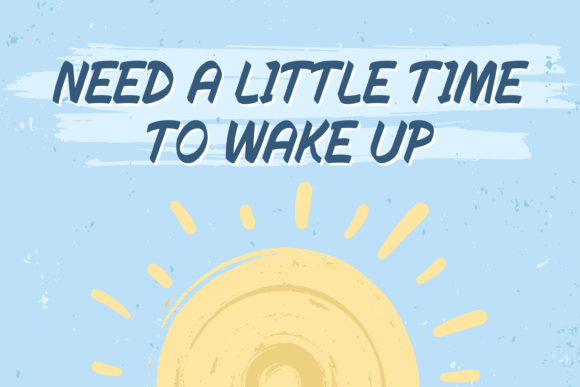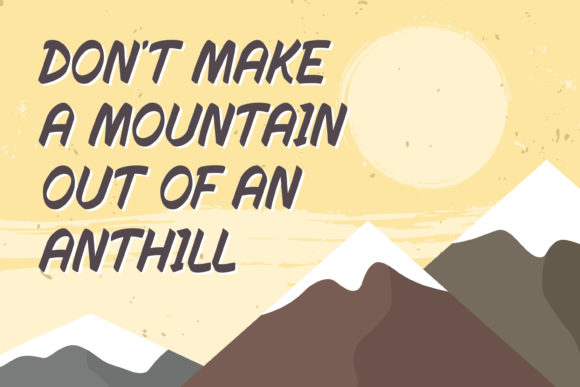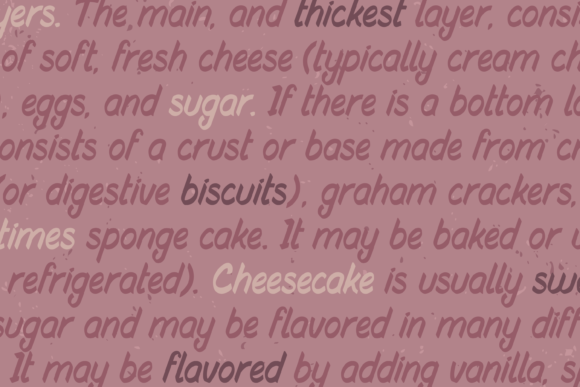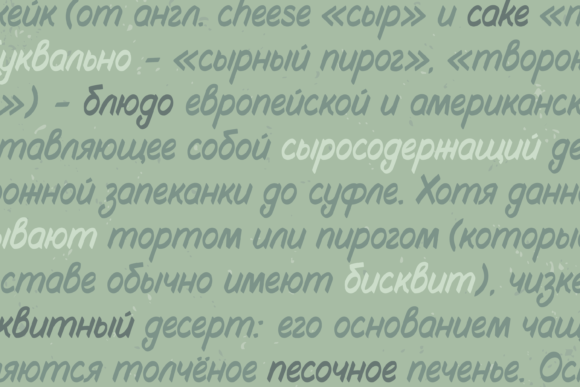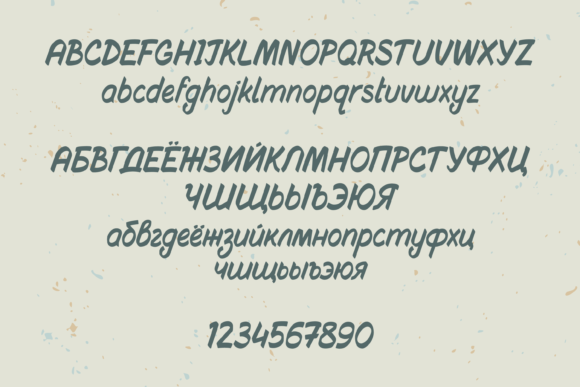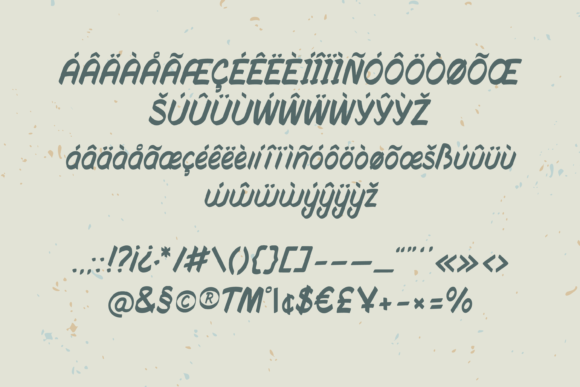
Introduction to Kermar Font
As designers, we’ve all been there – staring at a blank page, trying to bring a creative project to life. The right font can be the spark that sets the entire design ablaze. For me, that spark was the Kermar Font – a sweet and simple handwritten font that has become a staple in my design arsenal.
With its natural and unique style, the Kermar Font is an incredibly versatile design resource that can elevate any project. Whether you’re working on a branding campaign, a social media post, or a digital flyer, this high-quality font is sure to make a lasting impression. And the best part? It’s completely free to download, allowing you to experiment with it without any restrictions. From transparent backgrounds to bold typography, the possibilities with Kermar Font are endless.
Key Features of Kermar Font
- Unique and stylish font with a transparent background, ideal for backgrounds or overlays.
- Designed to be versatile and adaptable, making it a great addition to any design project.
Honest Review: Kermar Font
- High-quality font design: The Kermar Font has a sleek and modern design that looks great on both light and dark backgrounds.
- Transparent background: The font’s transparent background makes it easy to use in conjunction with other design elements.
- Limited character set: The font only includes a limited number of characters, which may not be suitable for all design projects.
- Not ideal for body text: While the Kermar Font looks great for headings and titles, it may not be the best choice for body text due to its unconventional design.
Overall, I would say that the Kermar Font is a solid design resource that can add a touch of creativity to your projects. While it may have some limitations, its unique design and high-quality appearance make it a great choice for designers looking for something a little different.
Tips for Getting the Most Out of Kermar Font
Experiment with different font sizes, colors, and styles to achieve the desired look for your creative project. Use the Kermar Font in combination with other design elements to create a visually appealing design.
The Kermar Font is ideal for use in logos, headings, and body text for various design projects, including brochures, business cards, and social media graphics.